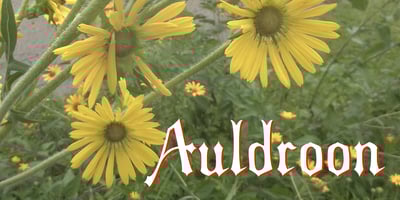
Auldroon
Auldroon font
Auldroon Font Family was designed by Robert Schenk and published by Ingrimayne Type. Auldroon contains 4 styles and family package options. Auldroon was inspired by the pseudo-medieval fonts that were fairly popular in the late 19th century. Auldroon comes in two variants. Auldroon-Eld was designed first and is a bit more compact than the regular version. Both are decorative and distinctive and neither was created with a specific use in mind.